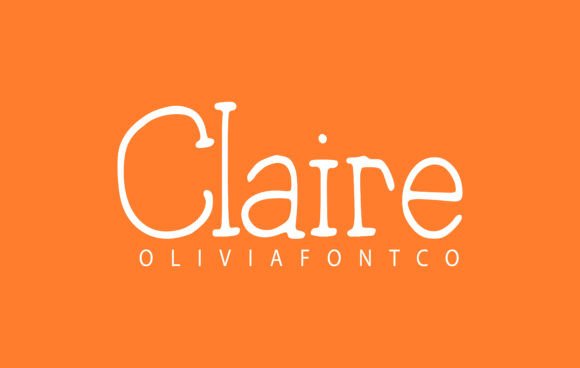
Introducing Claire Font: The Ultimate Handwritten Font for Creative Expression
Are you looking for a font that can add a touch of romance and elegance to your creative projects? Look no further than Claire Font, an authentic handwritten font that is sure to become your new favorite. Designed with love and care, Claire Font is a versatile and legible font that can be used for a wide range of applications, from magazine headlines to wedding invitations.
What Makes Claire Font So Special?
Claire Font is an authentic handwritten font that has been expertly designed to capture the essence of traditional handwriting. With its romantic touch and elegant flair, this font is perfect for anyone looking to add a personal touch to their creative projects. Whether you’re a designer, artist, or simply someone who loves to express themselves through creative writing, Claire Font is the perfect choice.
One of the standout features of Claire Font is its legibility. Unlike some handwritten fonts that can be difficult to read, Claire Font is clear and easy to understand, making it perfect for use as both title and body text. This means that you can use it for a wide range of applications, from large-scale headlines to smaller body text.
The Perfect Font for Creative Projects
So, what makes Claire Font the perfect font for creative projects? For starters, its unique and authentic handwritten style sets it apart from more traditional fonts. This makes it perfect for anyone looking to add a touch of personality to their work. Additionally, Claire Font is incredibly versatile, and can be used for a wide range of applications, including:
- Magazine headlines: Add a touch of elegance and sophistication to your magazine headlines with Claire Font.
- Social media: Stand out on social media with Claire Font’s unique and eye-catching style.
- Branding: Use Claire Font to create a cohesive and recognizable brand identity.
- Wedding invitations: Add a touch of romance and whimsy to your wedding invitations with Claire Font.
- Cards: Create beautiful and personalized cards for any occasion with Claire Font.
Why Choose Claire Font?
So, why should you choose Claire Font over other fonts? Here are just a few reasons:
- Unique and authentic style: Claire Font’s handwritten style is truly one-of-a-kind, and sets it apart from more traditional fonts.
- Legible and easy to read: Claire Font is clear and easy to understand, making it perfect for use as both title and body text.
- Versatile: Claire Font can be used for a wide range of applications, from magazine headlines to wedding invitations.
- Elegant and sophisticated: Claire Font adds a touch of elegance and sophistication to any creative project.
Tips for Using Claire Font
Here are a few tips for getting the most out of Claire Font:
- Use it sparingly: While Claire Font is beautiful, it can be overwhelming if used too much. Use it sparingly to add a touch of elegance and sophistication to your creative projects.
- Experiment with different sizes: Claire Font looks great in a variety of sizes, from large headlines to smaller body text. Experiment with different sizes to find the one that works best for your project.
- Pair it with other fonts: Claire Font pairs well with a variety of other fonts. Experiment with different pairings to find the one that works best for your project.
In conclusion, Claire Font is an authentic handwritten font with a romantic touch that is sure to become your new favorite. With its unique and authentic style, legibility, and versatility, Claire Font is perfect for a wide range of creative projects. Whether you’re a designer, artist, or simply someone who loves to express themselves through creative writing, Claire Font is the perfect choice. So why wait? Give Claire Font a try today and see the difference it can make in your creative projects!